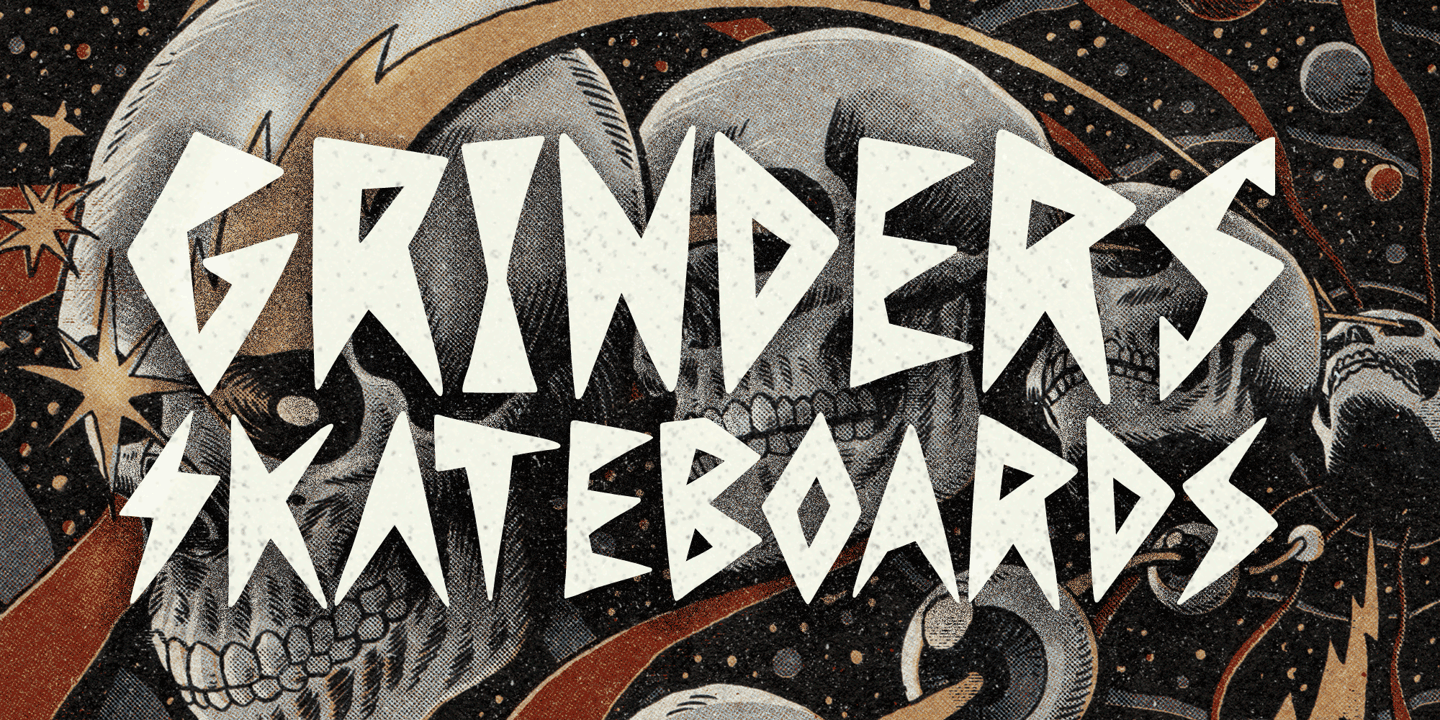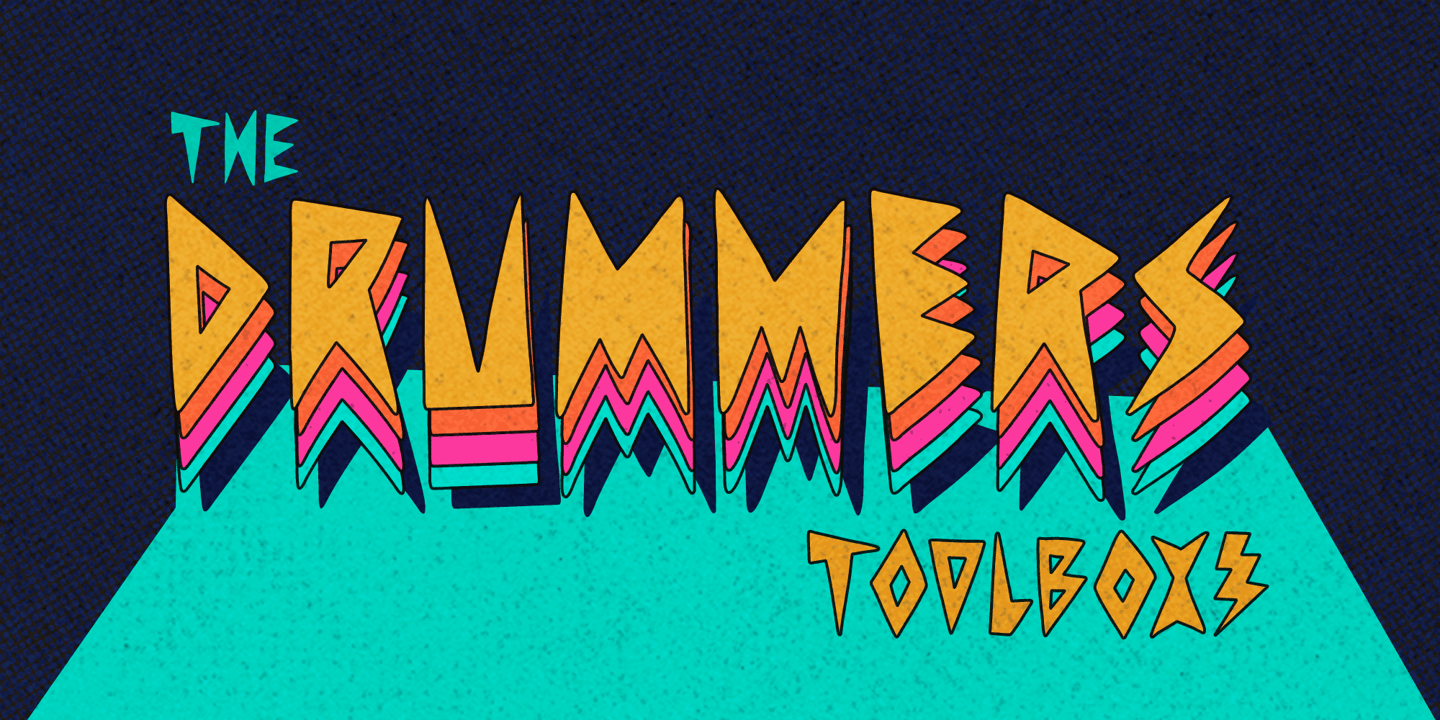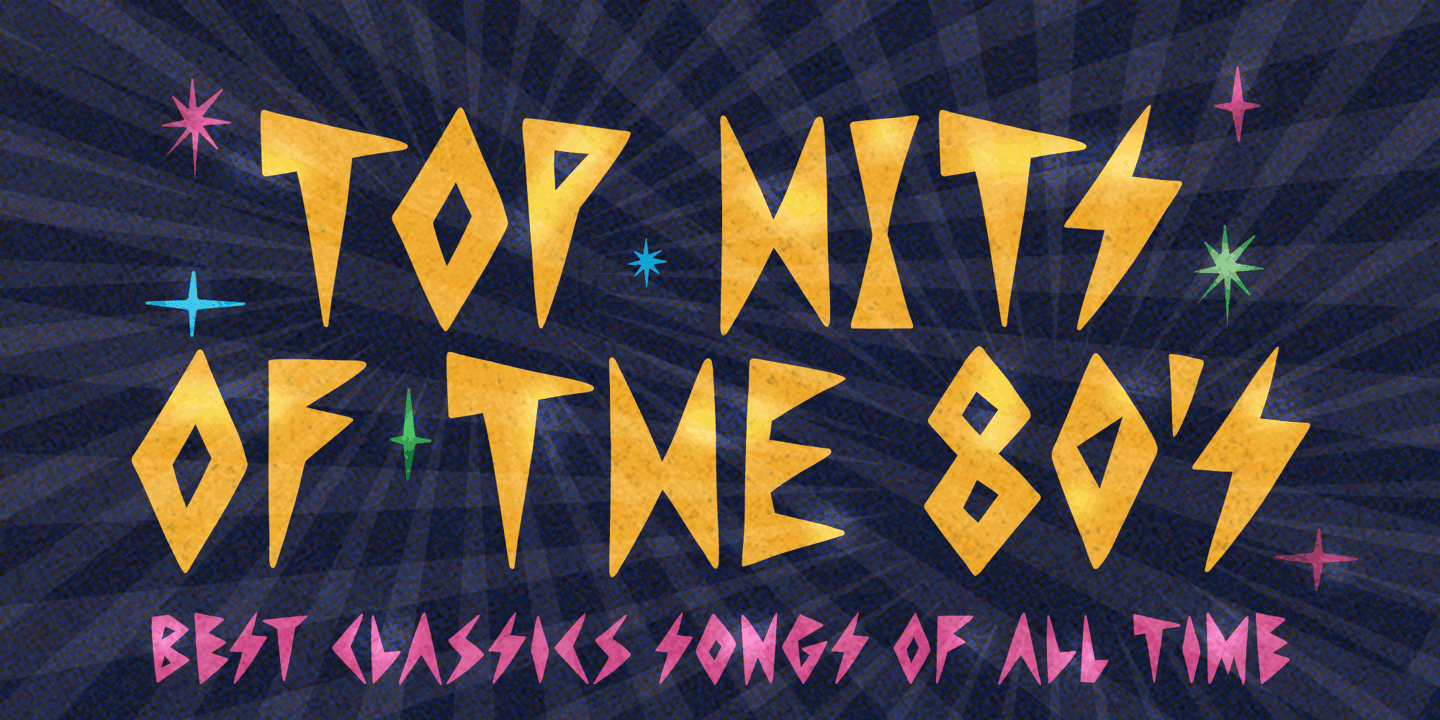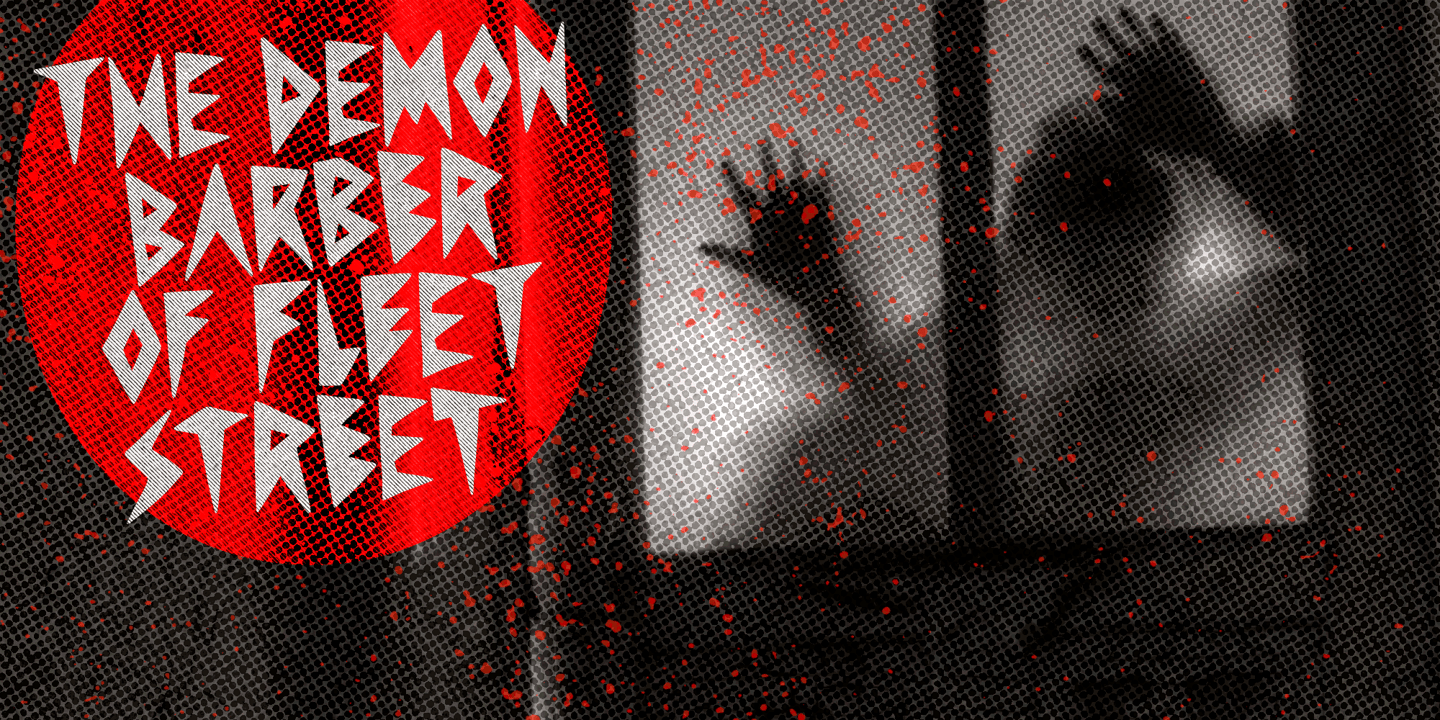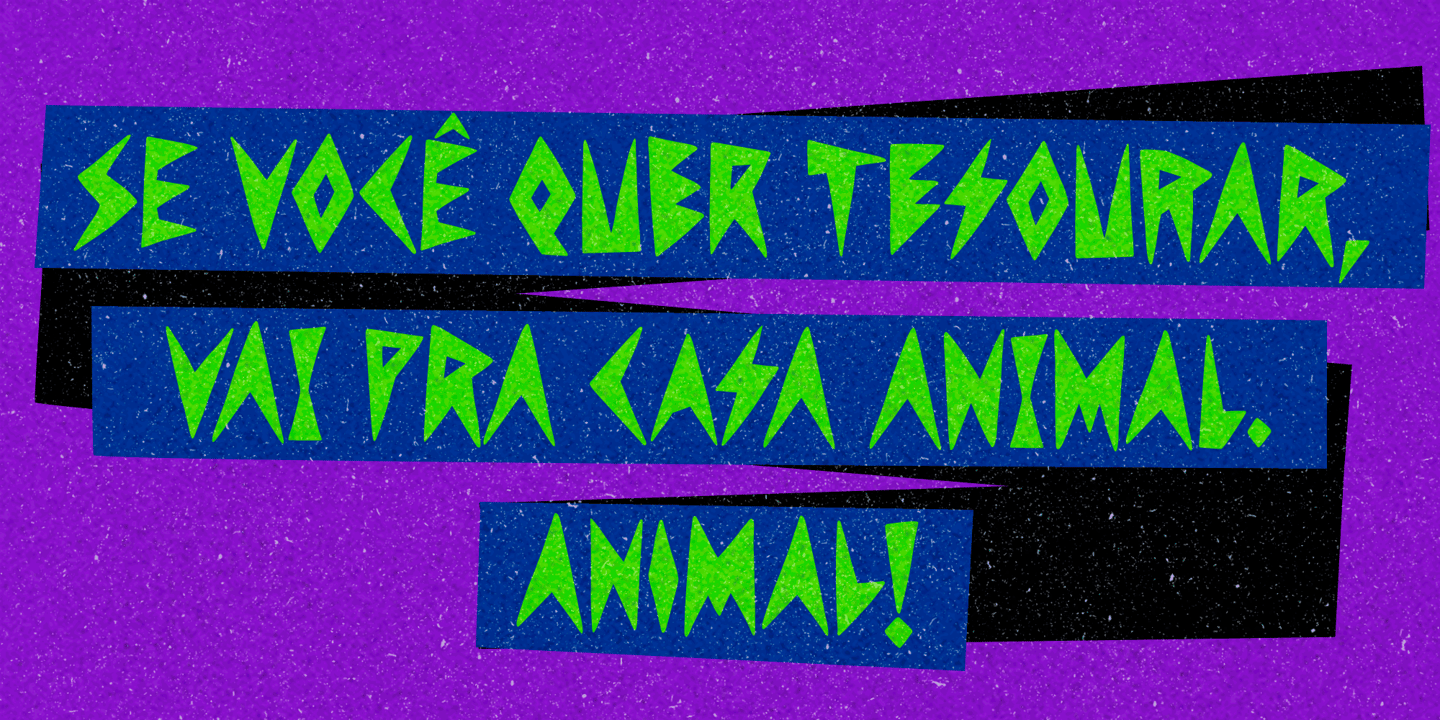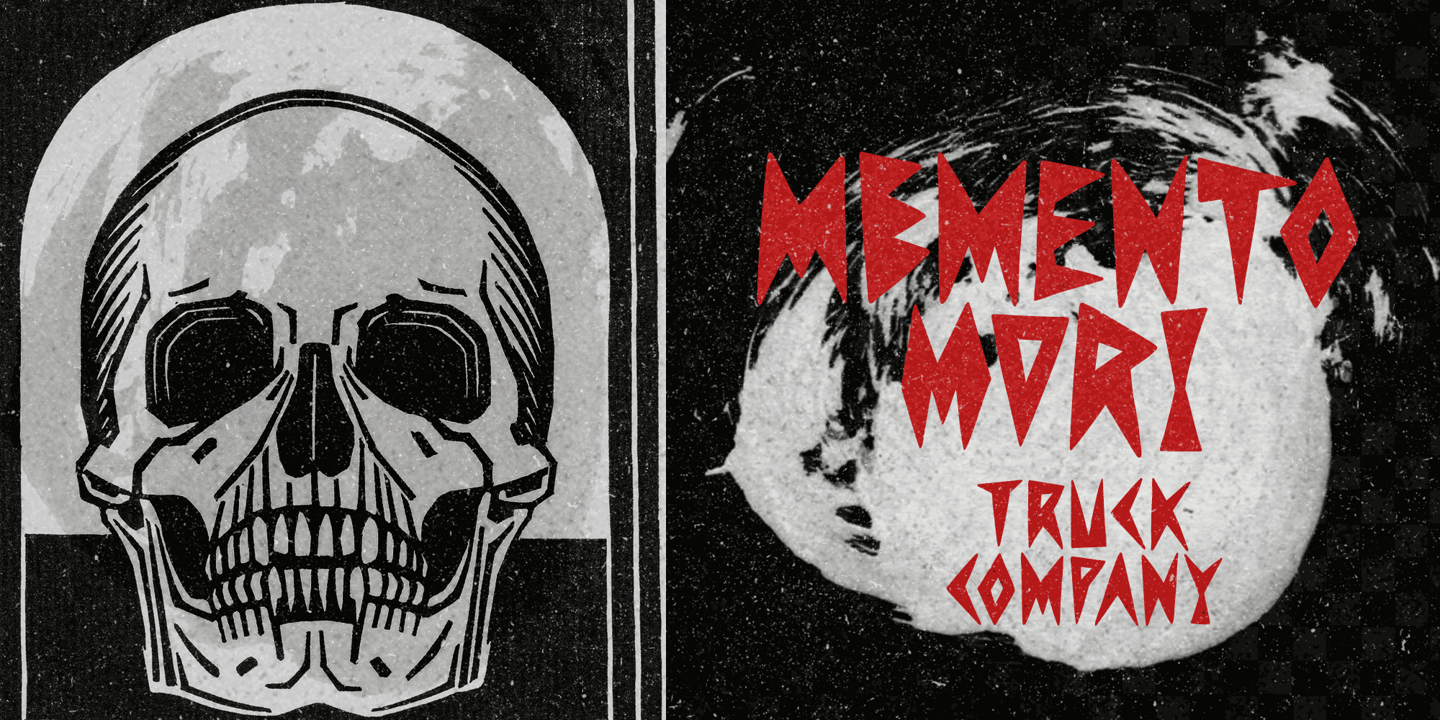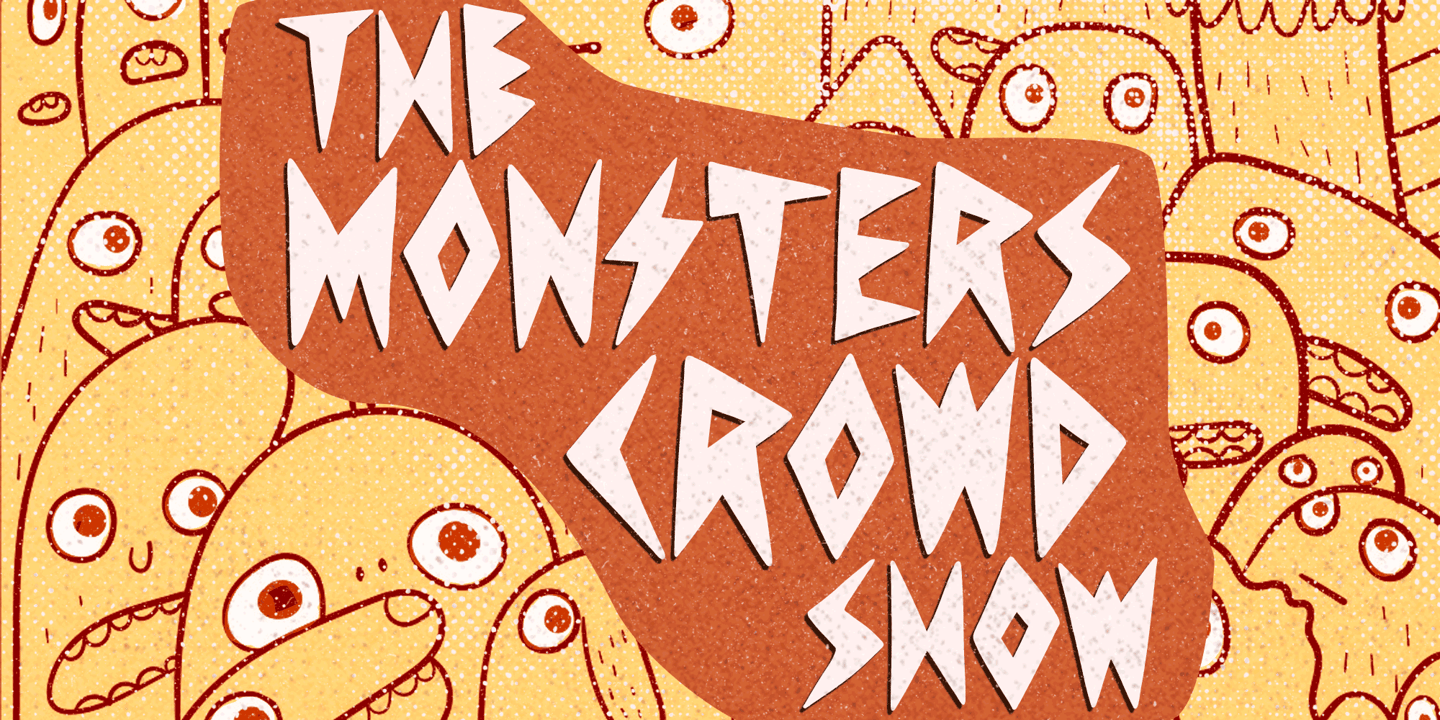
About the Skaligari Font
About Skaligari Font Family Skaligari is a sharp and energetic typeface, somewhat expressionist, somewhat eighties, punk, new wave, always edgy. It’s an all-caps font with two options for each letter and also for each numeral. Turn on the Contextual Alternates OpenType feature to instantly cycle these glyphs. There are yet stylistic alternatives, as well as graphical elements to add a twist here and there. Wild and full of energy,
Skaligari is a winning choice for sports and music-related ideas, skate films and labels, logos, apparel, zines. And, as creativity has no limits, how about some wedding invitations? Just play it loud! Designers: Erica JungPublisher: PintassilgoPrintsFoundry: PintassilgoPrintsDesign Owner: PintassilgoPrintsMyFonts debut: Nov 17, 2021 Skaligari